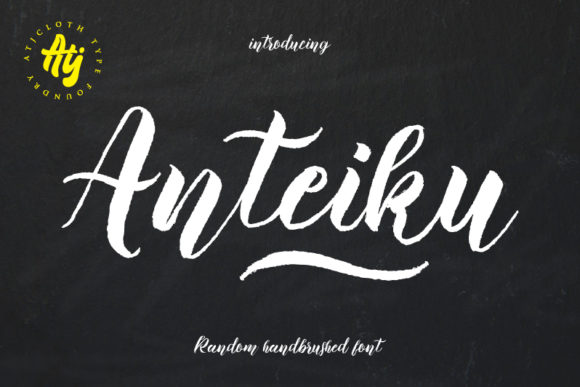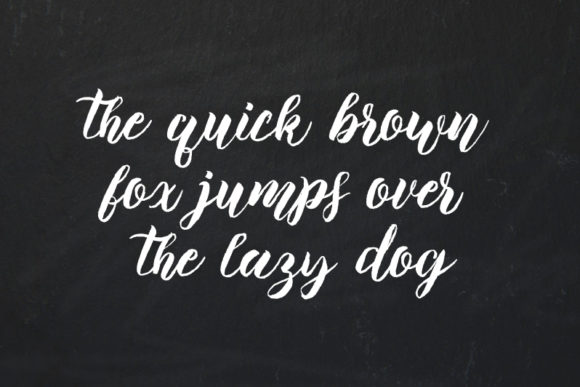
Anteiku Font
About Anteiku Font
Anteiku is a striking textured brush font. It has an irregular baseline which will add a natural feel to your designs.